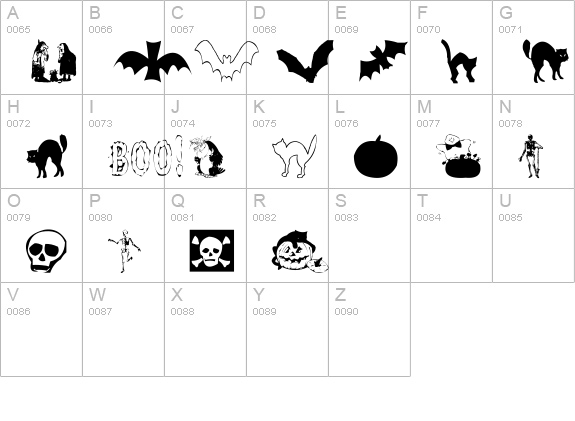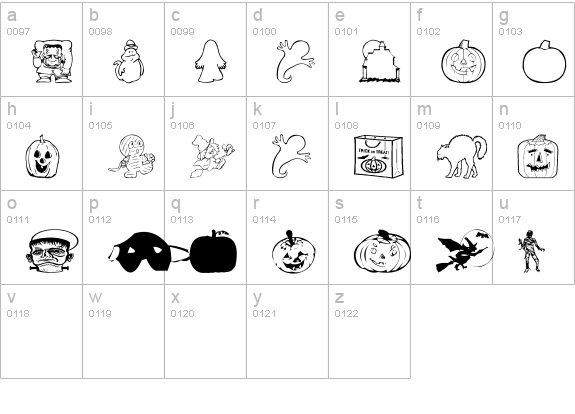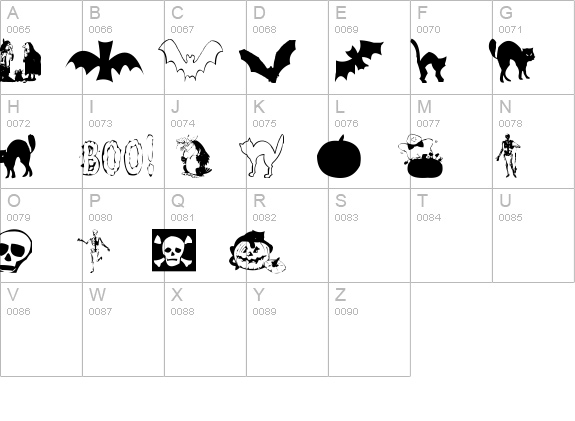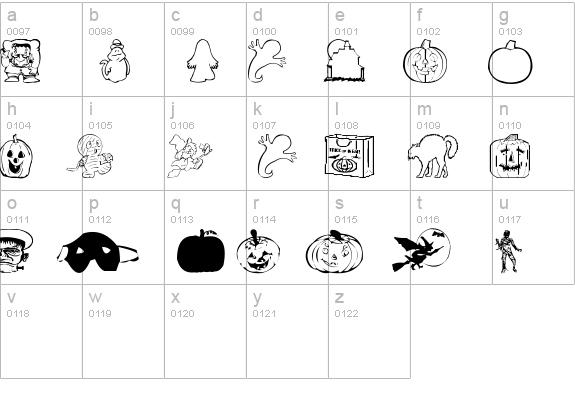
AEZ halloween dingbats Font Details
Celebrate Halloween in style with the spooktacular AEZ Halloween Dingbats font! This hauntingly delightful font features a collection of creepy and fun Halloween-themed icons and symbols perfect for adding a festive touch to your designs. From pumpkins and ghosts to bats and witches' hats, this font has everything you need to create ghoulishly good graphics for the holiday season. Best of all, the AEZ Halloween Dingbats font is available for free download at FontsMarket.com. Simply head over to the website to get your hands on this fantastic font and start adding a touch of Halloween magic to your projects today. Don't miss out on this amazing opportunity to elevate your designs with this fantastic and festive font - download it for free now!